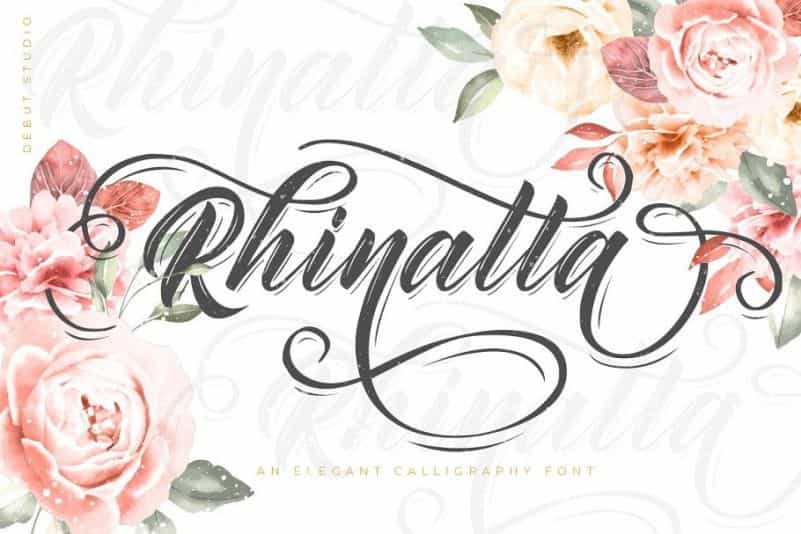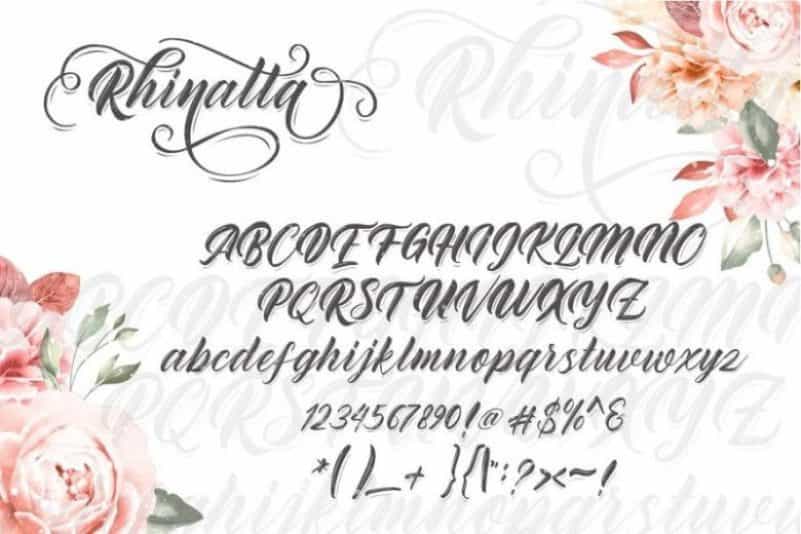
Introducing Rhinatta Font. Contemporary script font with speed-dry stroke. The script-like font is elegant with Highlight and shadow effect! It’s an ideal font for fashion, apparel, signature, album cover, logo, branding, magazine, social media, & advertisements when in actuality it’s good for many other projects.